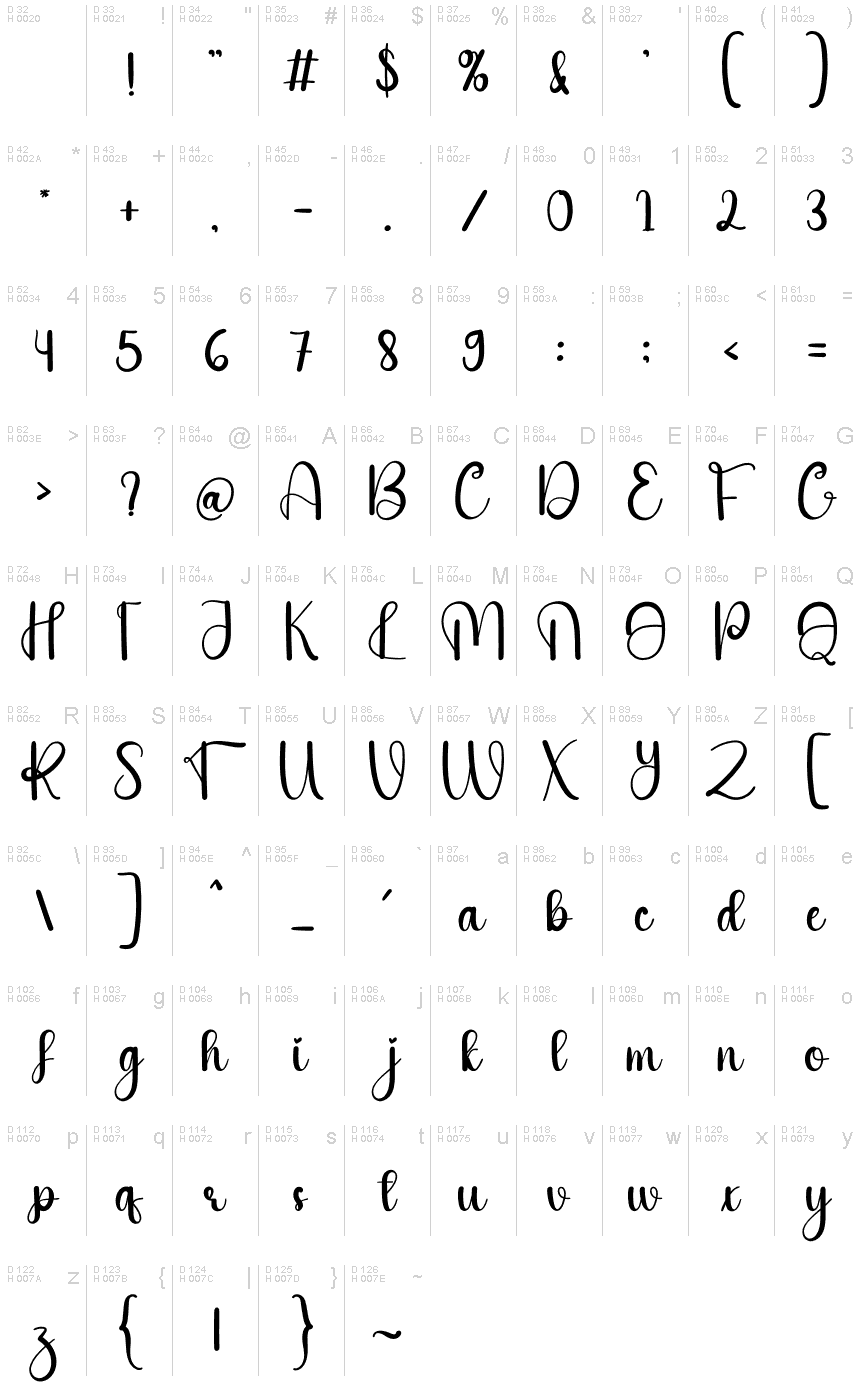
Handmade Christmas
Handmade Christmas by Scratchones embodies the warmth and personal touch of the holiday season through its handwritten style. With its flowing, organic curves and casual elegance, this font captures the essence of heartfelt holiday messages and cozy winter crafts. The expressive letterforms suggest a sense of joy and nostalgia, perfect for creating personalized greeting cards, festive decorations, or any project that calls for a touch of homemade charm.
The aesthetic appeal of Handmade Christmas lies in its balance between readability and artistic flair—each character is crafted to convey individuality without sacrificing clarity. Its suitability extends to a variety of creative endeavors; whether it's for branding a seasonal event or adding a personal note to gift tags and wrapping paper, this font's inviting appearance ensures your projects will resonate with the spirit of Christmas.
Invoke the magic of handcrafted holidays with Handmade Christmas—a font that truly celebrates the artisanal beauty within each stroke.